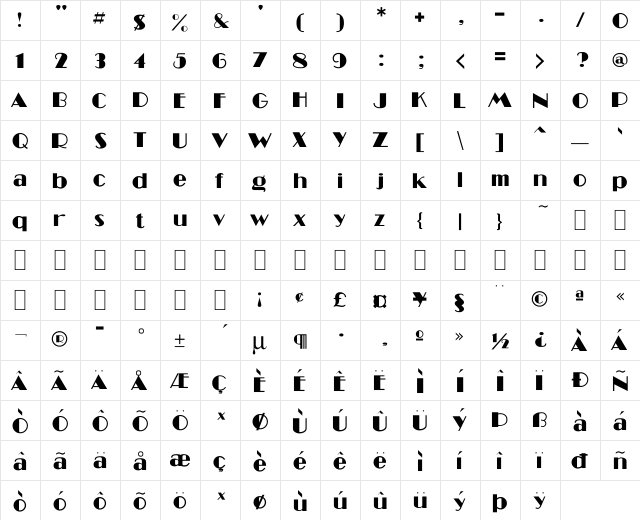
BD Miami Regular
Design Context for BD Miami Typeface
BD Miami is a composed and adaptable typeface that performs quietly and consistently across a wide range of design contexts. Its bold stroke weight gives it real presence on the page.